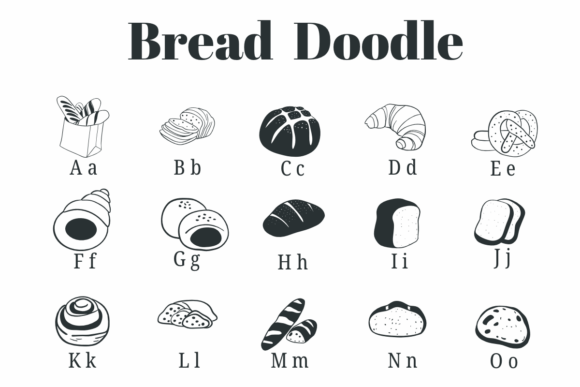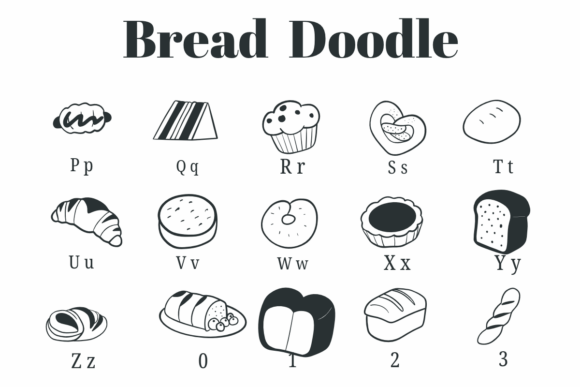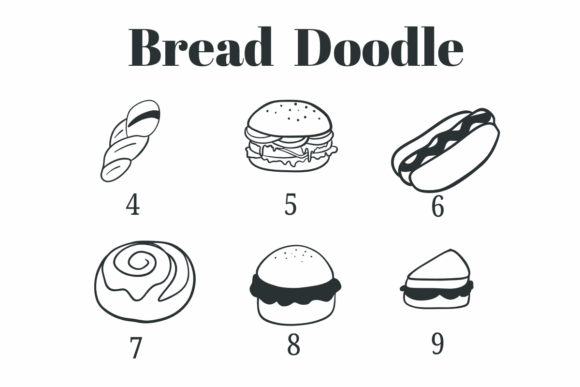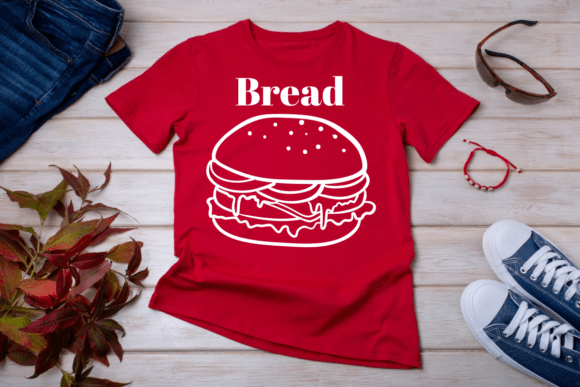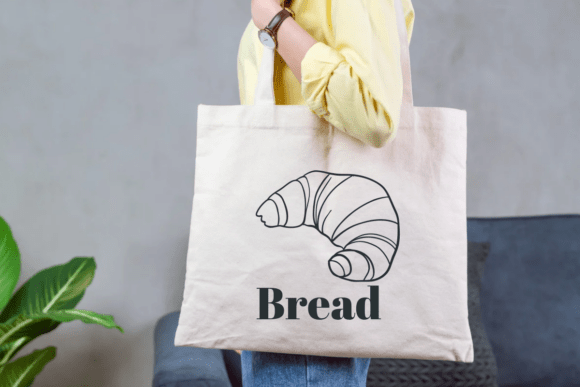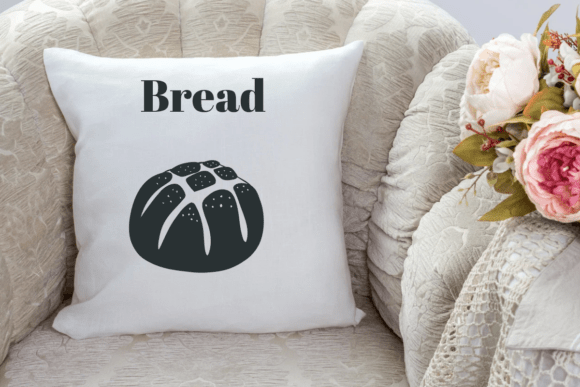
Get Ready to Rise to the Occasion with the Bread Doodle Font
Have you ever found yourself stuck in a creative rut, searching for that one special something to bring your design to life? We’ve all been there – pouring over fonts, trying to find the perfect combination of style and flair. But what if we told you there’s a secret ingredient that can take your designs from bland to grand? Enter the Bread Doodle Font, a fun and playful dingbats font that’s sure to add a touch of whimsy to your next project.
With the Bread Doodle Font, the possibilities are endless. Whether you’re a seasoned designer or just starting out, this font is the perfect addition to your creative toolbox. Its versatility and charm make it a valuable asset for any project, from children’s book illustrations to social media graphics. So why not give it a try and see where the Bread Doodle Font takes your designs?
Bread Doodle Font Key Features
- Font Family: Bread Doodle Font is a unique, handwritten font designed to resemble doodles in bread.
- Character Count: 250+ glyphs, including uppercase and lowercase letters, numbers, and special characters.
- Unique Characteristics: Features a playful, whimsical feel with irregular lines and flourishes, perfect for adding a touch of personality to designs.
Bread Doodle Font Review
Overall, I was excited to dive into the “Bread Doodle Font” and see what it had to offer. The first thing that caught my eye was the whimsical and playful nature of the font – it’s perfect for adding a touch of personality to your designs. ✨ The flourishes and doodles throughout the font make it feel truly unique and fun.
One of the standout features of the “Bread Doodle Font” is its versatility. It can be used for a wide range of projects, from social media graphics to wedding invitations. ✨ The font is also highly customizable, with a range of options for color, size, and style.
- Whimsical and playful design
- Versatility for a wide range of projects
- Unique flourishes and doodles
- ⚠️ Limited character set – some letters and punctuation marks may not be available
- ⚠️ May not be suitable for formal or professional projects
- ⚠️ Can be overwhelming if used in large quantities
Overall, I would recommend the “Bread Doodle Font” for designers who are looking for a fun and unique addition to their projects. While it may have some limitations, its versatility and customizability make it a great choice for a wide range of applications.
The Bread Doodle Font is perfect for creating whimsical and playful designs, such as:
– Menu boards
– Invitations
– Logos
– Branding materials
– Personalized gifts
To get the most out of the Bread Doodle Font, experiment with different font sizes, styles, and combinations to achieve a unique look.
Alternatives to Bread Doodle Font
The Great Vibes Font is a beautiful, hand-drawn script font that is perfect for creating a fun and playful atmosphere. It is ideal for use in branding, advertising, and editorial design. Compared to Bread Doodle Font, Great Vibes Font has a more polished and refined look, making it suitable for a wider range of applications.
The Alex Brush Font is a elegant, handwritten script font that is perfect for creating a sophisticated and luxurious atmosphere. It is ideal for use in high-end branding, packaging, and invitation design. Compared to Bread Doodle Font, Alex Brush Font has a more refined and polished look, making it suitable for high-end applications.
The Pacifico Font is a beautiful, elegant script font that is perfect for creating a relaxed and beachy atmosphere. It is ideal for use in branding, advertising, and editorial design. Compared to Bread Doodle Font, Pacifico Font has a more laid-back and casual look, making it suitable for applications that require a relaxed tone.
How do I customize the Bread Doodle Font to fit my design needs?
The Bread Doodle Font is a highly customizable font that allows you to adjust various parameters, including font size, line spacing, and color. You can also use font editing software to modify the font’s glyphs and create custom variations. Additionally, you can combine the Bread Doodle Font with other fonts and design elements to create a unique visual style.